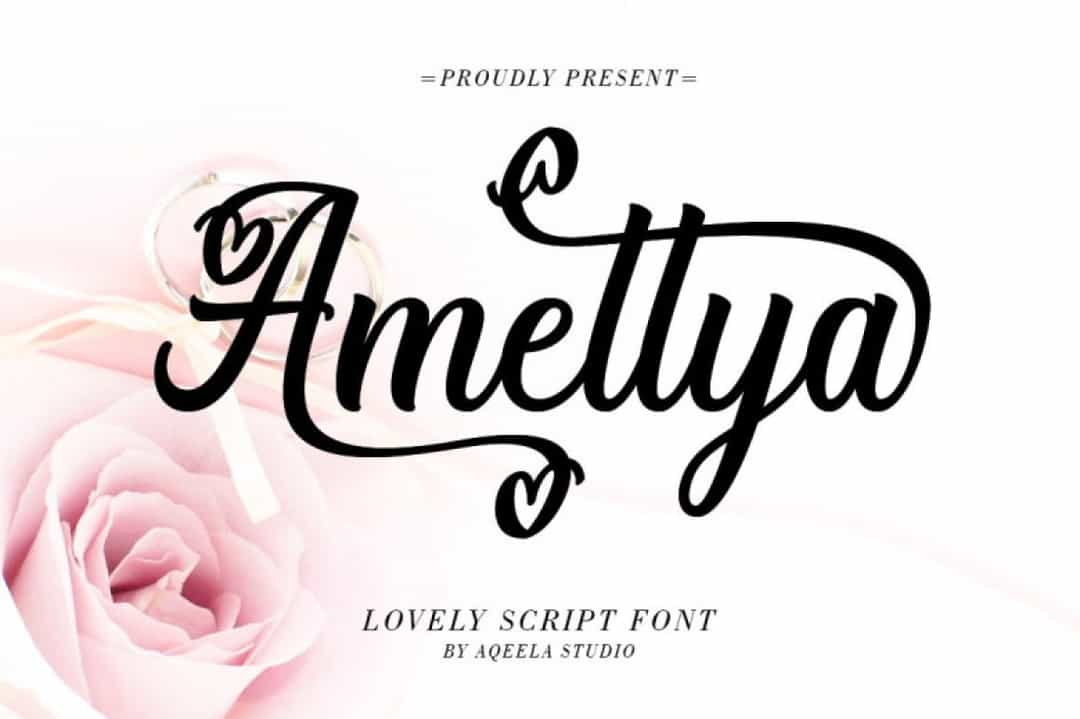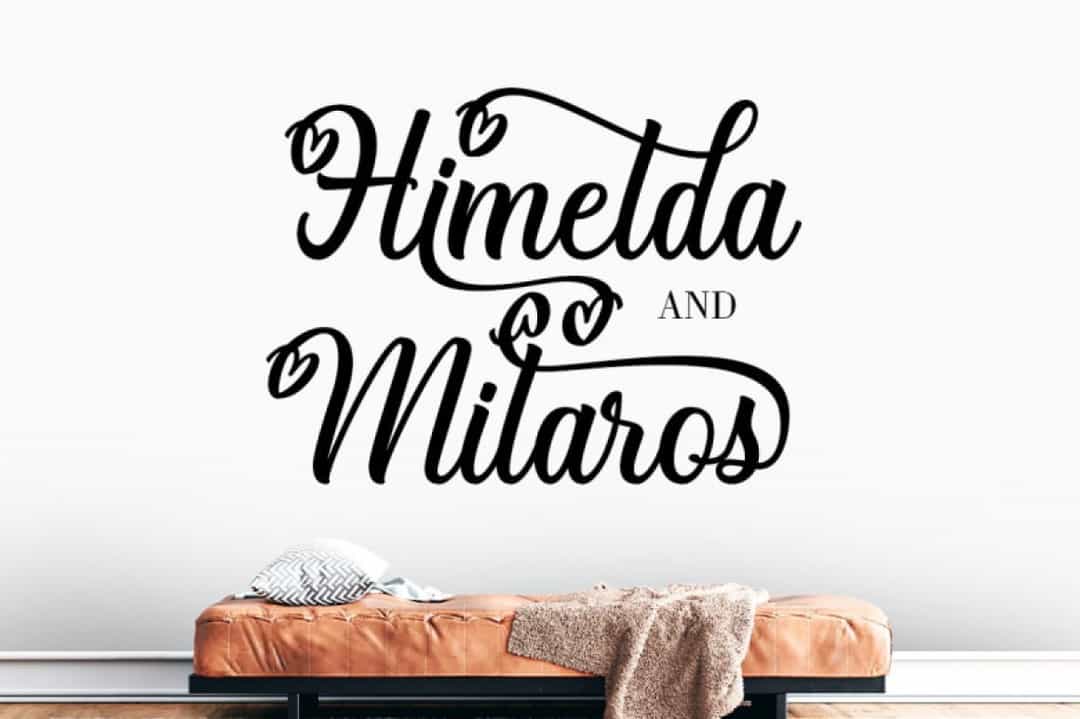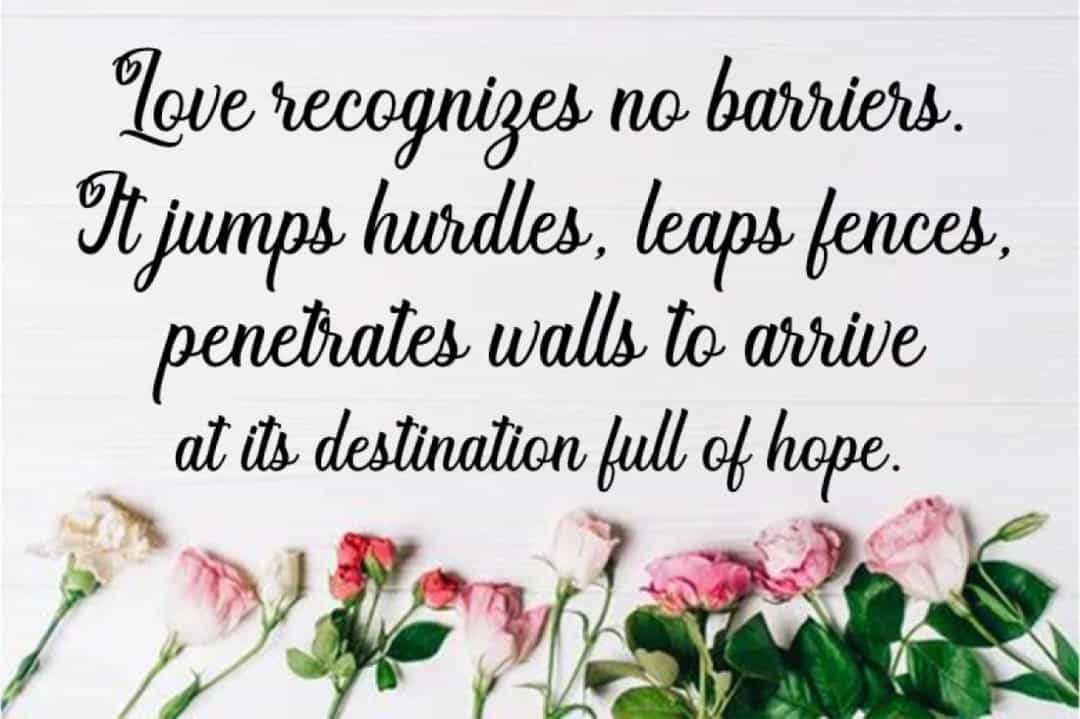
Amellya is a delightful handwritten script typeface. Perfect for wedding invitations, thank-you cards and quotes as well as greeting cards corporate cards logos and any design requiring the look and feel of handwriting, it adds charm and originality.